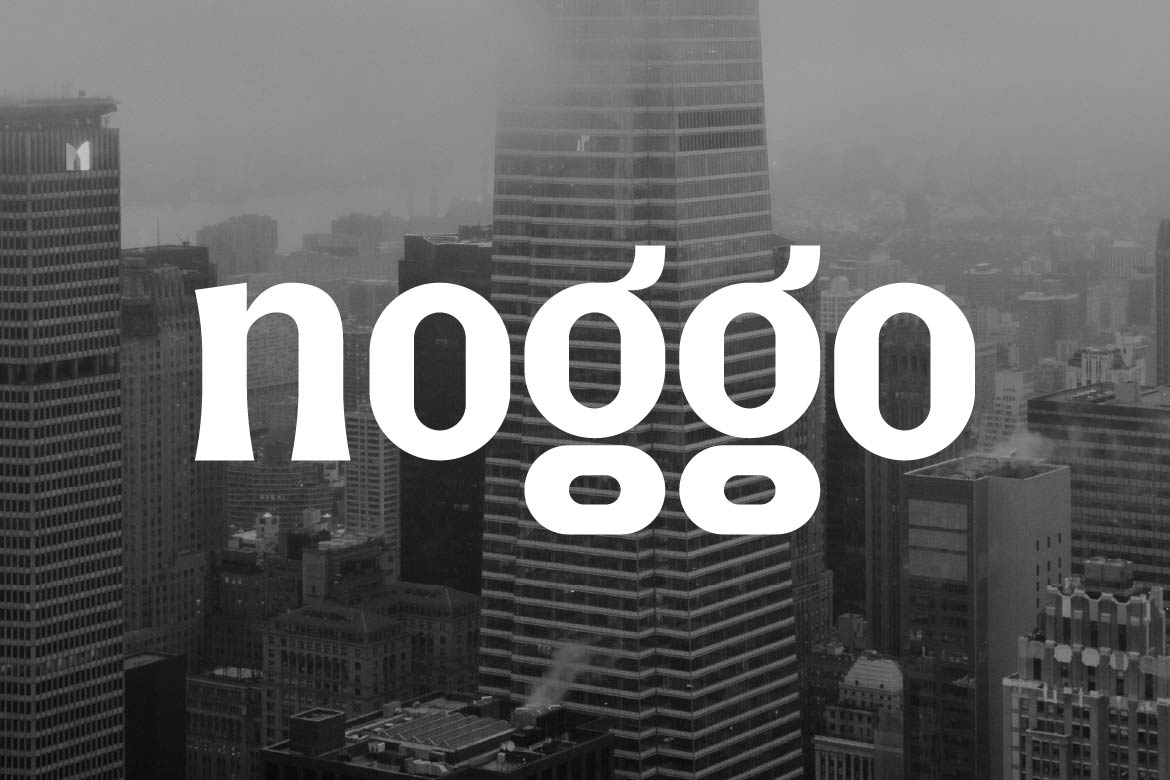
- Noggo – Contemporary Creative Display Font
Noggo is a creative sans serif display font designed to build bold, memorable, and modern brand identities. With clean structure, distinctive letterforms, and strong visual personality, Noggo delivers a unique typographic presence that stands out across logos and creative display applications.
Perfect for branding, logos, posters, packaging, social media graphics, merchandise, and visual identity systems, Noggo combines modern simplicity with expressive character. Its balanced design ensures readability while maintaining a distinctive and eye-catching appearance in large compositions.
Whether you’re creating startup branding, creative agency visuals, or standout promotional materials, Noggo provides a confident and versatile design solution.
Noggo is not just a font — it’s a creative branding tool made for recognition and impact.